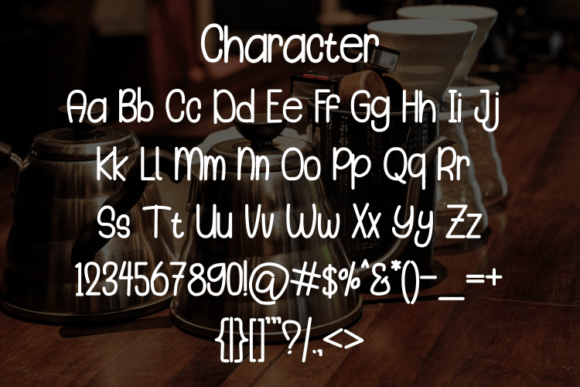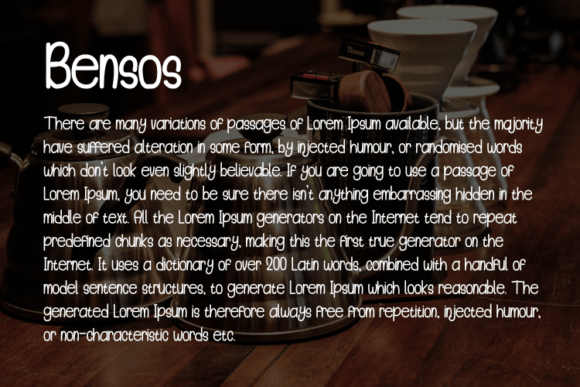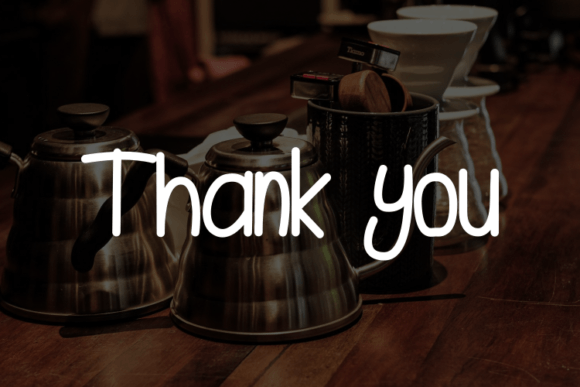
The Perfect Font for the Creative Soul
Have you ever been stuck in a creative rut, staring at a blank page, desperately searching for the perfect font to bring your design to life? We’ve all been there. But what if I told you that the solution lies in a beautiful, elegant script typeface that exudes modern sophistication and timeless charm?
Meet Bensos Font, a versatile and stylish font designed to elevate your logo, book or movie titles, fashion brands, magazines, and more to the next level. With its simple yet luxurious aesthetic, Bensos Font is the perfect tool for designers seeking to add a touch of sophistication to their projects.
Whether you’re a seasoned pro or a design newbie, Bensos Font offers unparalleled flexibility and creative freedom, making it an invaluable asset in your design arsenal.
Bensos Font Key Features
- Unique Characteristics: The font features a unique, handwritten style with a mix of casual and elegant elements, making it perfect for creative and artistic projects.
Bensos Font Review
I’ve had the chance to work with the Bensos font, and here’s my honest take. ✨ One of the things that stands out is the unique blend of elegance and playfulness. The font has a distinctive feel that’s perfect for projects that need a bit of whimsy.
Another strength of Bensos is its versatility. ✨ It’s available in a range of weights and styles, making it easy to use in a variety of contexts. Whether you’re creating a logo, heading, or body text, Bensos has a version that’s likely to fit the bill.
- ⚠️ Bensos may not be the best choice for large blocks of text. While it’s great for headlines and short paragraphs, it can start to feel fatiguing when used extensively.
- ⚠️ Some users may find the font’s quirks (such as the unusual letterforms) distracting or off-putting.
Overall, I think Bensos is a solid choice for designers looking to add some visual interest to their projects. While it may not be perfect for every situation, it’s definitely worth considering for the right kind of project.
Tips for Getting the Most Out of Bensos Font
Use Bensos Font in bold and italic styles to add emphasis to your text.
Combine Bensos Font with other fonts to create a unique and eye-catching design.
Experiment with different font sizes and colors to match your design requirements.
Common Use Cases for Bensos Font
Use Bensos Font in titles and headings to add a touch of elegance to your design.
Use Bensos Font in body text to create a consistent and professional look.
Use Bensos Font in
Alternatives to “Bensos Font” for Designers
Great Vibes Font is a modern script font that is perfect for adding a touch of elegance and sophistication to your designs. It’s ideal for use in invitations, wedding designs, and other creative projects where a unique, handwritten feel is desired.
Compared to Bensos Font, Great Vibes Font has a more refined and polished look, making it a great choice for high-end designs. While Bensos Font has a more playful and casual vibe, Great Vibes Font is more suited for formal and professional applications.